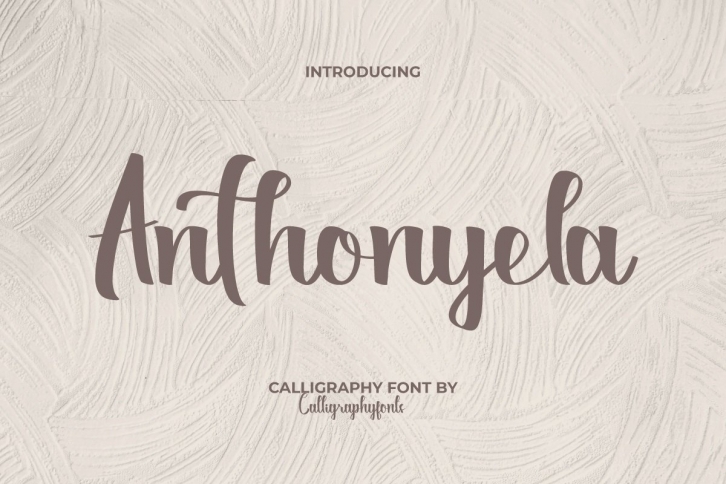
Anthonyela is a trendy and unique font with an authentic style. It was designed by Calligraphy Fonts and it's a great choice for creative people who need such a font. It was released on December 28, 2021 and the file size is 6.56 MB. Anthonyela will add an organic vibe to any design idea!